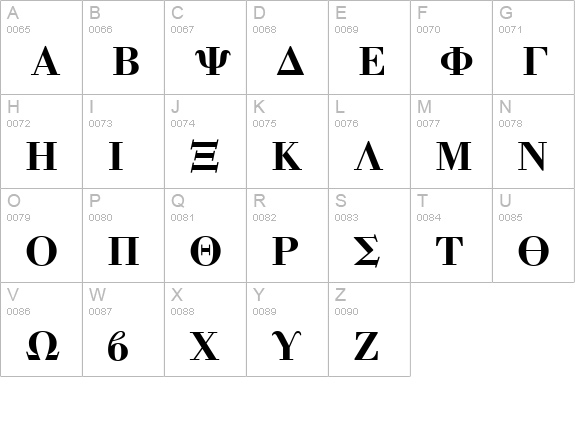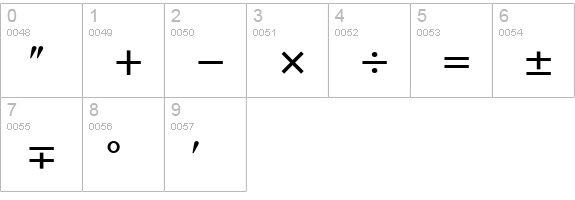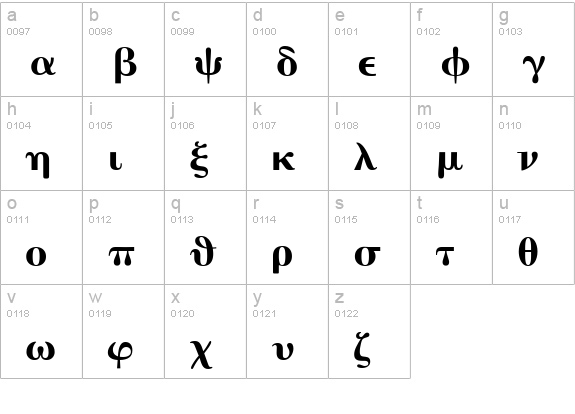
Introducing the mesmerizing Quanta Pi Two SSi font, a captivating typeface that will instantly elevate your design projects to new heights. With its sleek and modern appearance, this font effortlessly commands attention and exudes a sense of sophistication. Quanta Pi Two SSi is the perfect fusion of elegance and innovation, making it the ideal choice for a wide range of design applications. Whether you're working on a logo, website, poster, or any other creative endeavor, this versatile font will breathe life into your designs and leave a lasting impression. One of the most remarkable aspects of Quanta Pi Two SSi font is that it is freely available to download at FontsMarket.com. Yes, you read that right - this extraordinary font can be yours without spending a single penny. Now, you can unleash your creativity without any limitations or financial constraints. The attention to detail in Quanta Pi Two SSi font is truly remarkable. Every curve, every line, and every stroke has been meticulously crafted to perfection, resulting in a font that is not only visually stunning but also incredibly legible. Its clean and crisp letterforms make reading a breeze, ensuring that your message is effortlessly conveyed to your audience. Quanta Pi Two SSi font offers a wide range of weights and styles, allowing you to experiment and find the perfect combination for your specific design needs. From bold and impactful to subtle and refined, this font has it all. Its versatility knows no bounds, making it a valuable asset in any designer's toolkit. Stand out from the crowd and make a statement with Quanta Pi Two SSi font. Its unique and captivating design will captivate your audience and leave them wanting more. Download this incredible font for free at FontsMarket.com and experience the power of Quanta Pi Two SSi font for yourself. Embrace creativity without boundaries and unlock the true potential of your designs today.